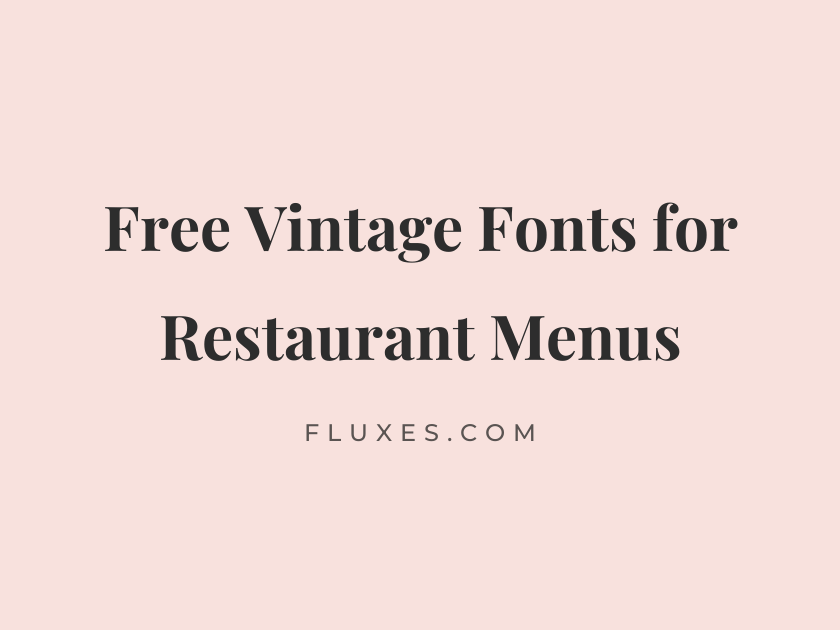
64 Best Free Vintage Fonts for Restaurant Menus
Vintage restaurant menus rely on typography that feels handled, aged, and specific to a place, the kind of lettering you’d find stenciled on a butcher shop window or engraved on a supper club’s leather-bound wine list. Whether you’re building a menu for a smoky BBQ joint, a red-sauce trattoria, a Parisian-style bistro, or a Prohibition-era speakeasy, free vintage fonts from Google Fonts can carry that mood without licensing headaches. The styles below range from chiseled serifs and hand-lettered scripts to distressed western display faces and honest typewriter faces, all useful for building a menu that feels like it has history behind it.
1. Playfair Display
High contrast strokes and a sharp, fashion-editorial polish make this one of the most reliable headline serifs for upscale menus. It reads as expensive without trying too hard, which is exactly the register most fine-dining rebrands are chasing.
Pair it with a plain serif or sans for the body copy since its drama is meant for titles and dish names, not paragraphs of ingredient lists.
2. Abril Fatface
Thick, inky, and a little theatrical, Abril Fatface borrows its weight from nineteenth-century poster type. It’s a strong choice for a menu cover or a section like “Desserts” where you want one word to feel like a marquee.
3. Cinzel
Modeled loosely on Roman capital inscriptions, Cinzel gives a menu an old-world, almost classical gravity. It suits Italian and Mediterranean concepts especially well, though it’s built for titles rather than long lines of text.
4. Cinzel Decorative
This is the flourished, engraved cousin of Cinzel, useful for a single ornamental header on a cocktail list or a wax-seal-style logotype. Use it sparingly; its detail can turn to mush at small sizes.
5. Marcellus
Marcellus keeps the formality of a classical serif but trims away the ornament, so it stays legible in a printed price list where Cinzel or Playfair might feel heavy. A dependable, understated choice for a menu that wants elegance without shouting about it.
6. Yeseva One
Rounded serifs and generous curves give Yeseva One a warm, storybook feeling, closer to a hand-painted sign than a formal type specimen. It works nicely on a bakery or family-restaurant menu where “homemade” is the whole pitch.
7. Vidaloka
Vidaloka has the flared serifs and slight condensed feel of a 1920s advertising face, giving it a natural home on a seafood shack or oyster bar menu that wants some Art Deco polish.
8. Cormorant Garamond
This is Garamond reimagined at display size, with hairline-thin strokes and a jewelry-like delicacy that reads as old European luxury. It shines on a French restaurant’s printed card set in generous point sizes, but it’s too fine for small print or dim dining-room lighting.
For contrast, set the descriptive text beneath each dish in something sturdier, like EB Garamond or Crimson Text.
9. Cormorant
The workhorse sibling to Cormorant Garamond, offering the same refined, high-contrast letterforms in a form slightly better suited to running text and category labels.
10. EB Garamond
A faithful digital revival of Claude Garamont’s sixteenth-century type, EB Garamond is one of the most versatile free vintage fonts for restaurant menus that need to actually be read at the table. It’s calm enough for long ingredient descriptions and historically appropriate for almost any European-inspired concept, from a farmhouse bistro to a wine bar.
11. Libre Baskerville
Sturdy and slightly widened for screen and print legibility, this Baskerville adaptation gives a menu a trustworthy, established feel without leaning fussy.
12. Crimson Text
Crimson Text has the restrained rhythm of a well-set book, making it a smart pick for a menu with a lot of descriptive text, like a tasting menu with wine pairings listed underneath each course.
13. Old Standard TT
There’s a slightly academic, turn-of-the-century printing-press quality to this one, as if it came off a menu tucked inside an old cookbook. It suits a European café or patisserie aiming for a scholarly, well-worn charm.
14. Fanwood Text
A compact, old-style serif with narrow proportions, useful when menu space is tight and you still want a literary, printed-book feel rather than a modern sans.
15. Alegreya
Alegreya was originally drawn for literary typesetting, and that heritage shows in its calligraphic rhythm and humanist warmth. Bold weights work well as section headers on an Italian or Spanish-inspired menu.